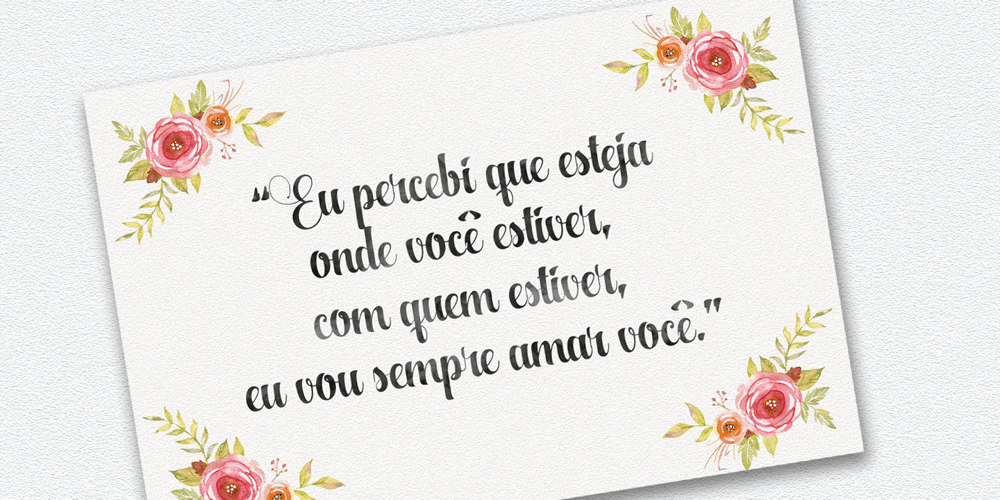
Aqualita Font Family was designed by Roiyani Teungku and published by Artisan Studio. Aqualita contains 1 styles and family package options. Aqualita is bold and italic script font, with flexible character, and the top of each glyph slightly sloping. Font features: – Standard ligatures – Stylistic Alternates – Stylistic sets Font file included: Aqualita OTF Can be used for various purposes.such as headings, logos, wedding invitation, t-shirt, letterhead, signage, lable, news, posters, badges etc. To enable the OpenType Stylistic alternates, you need a program that supports OpenType features such as Adobe Illustrator CS, Adobe Indesign & CorelDraw X6-X7